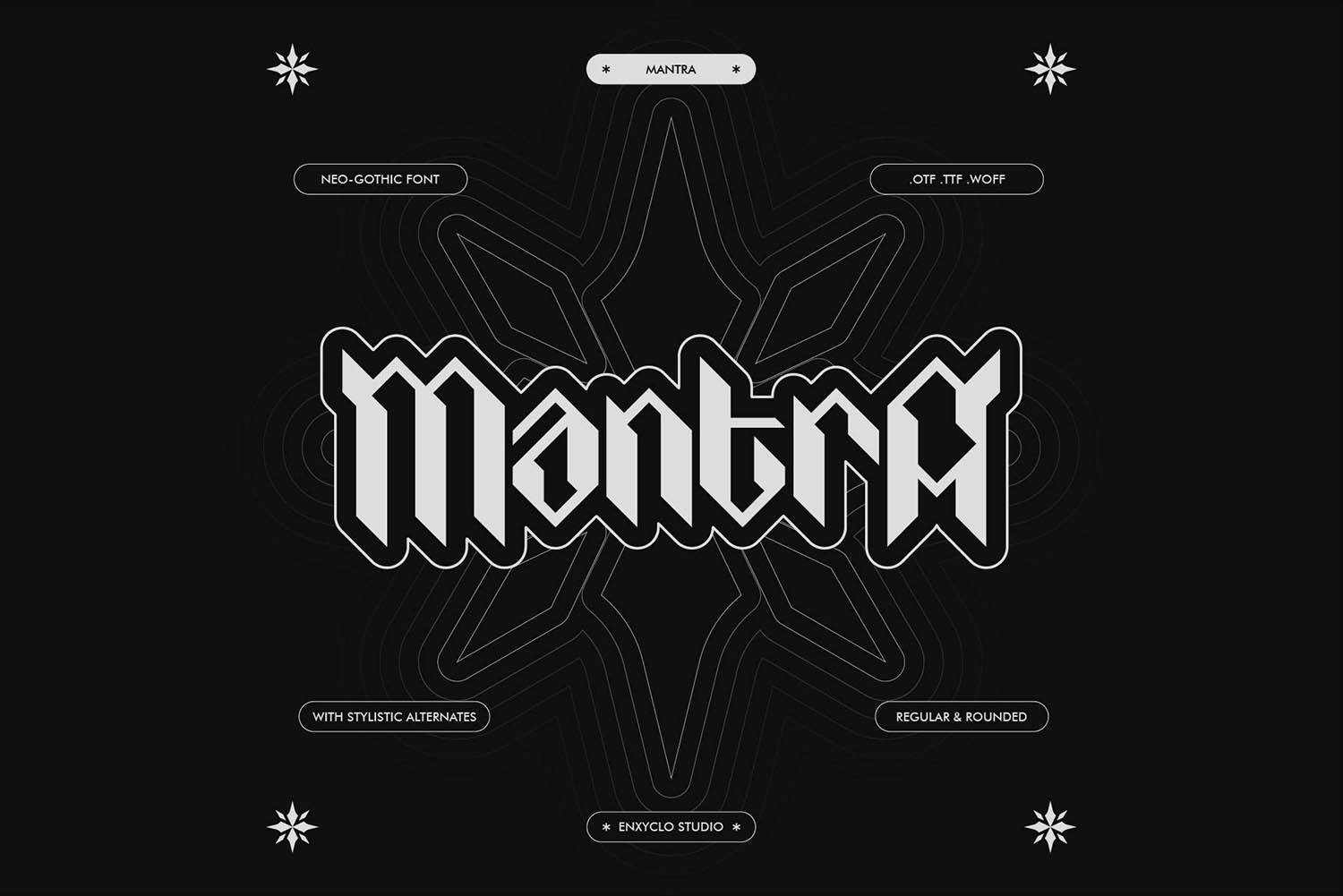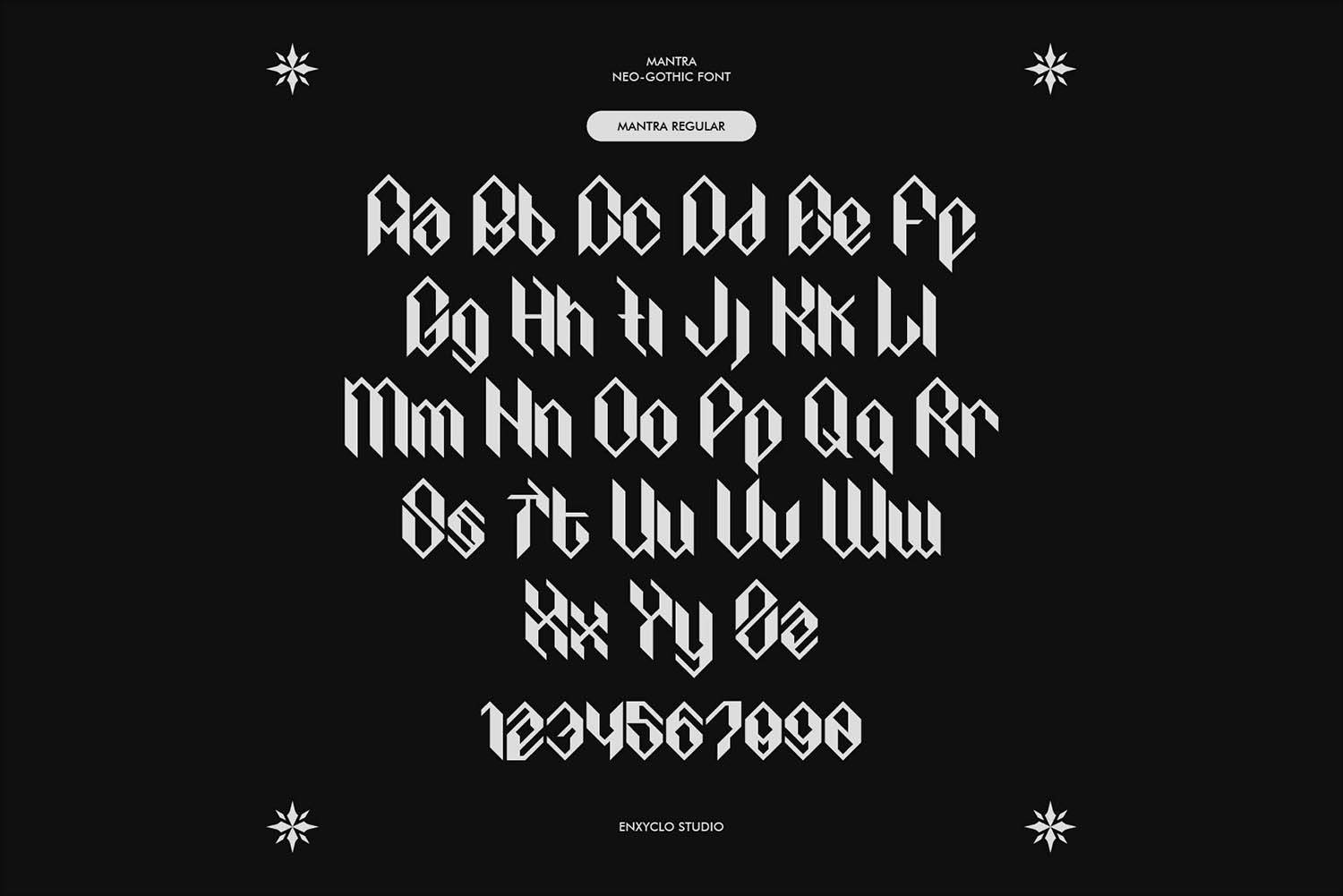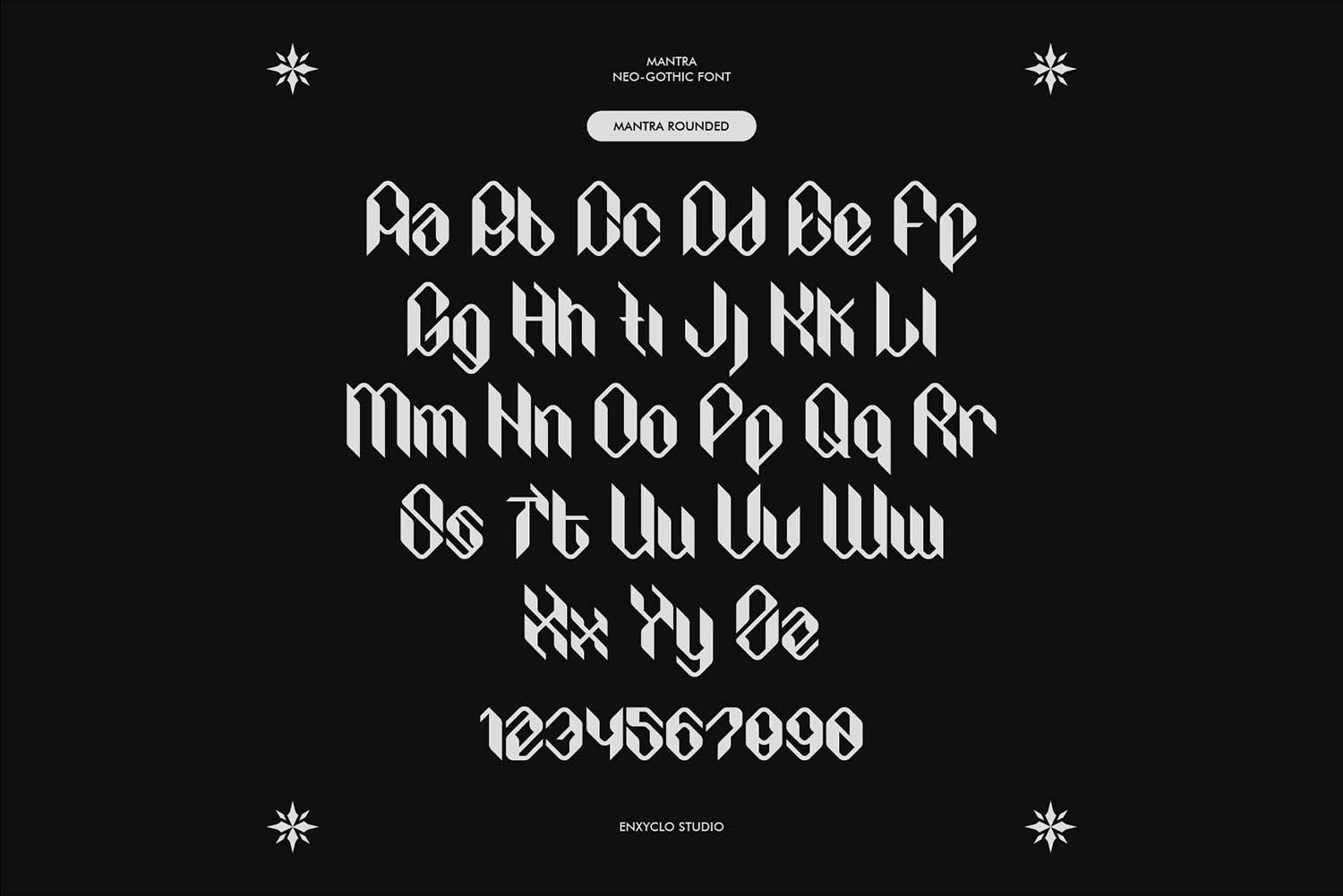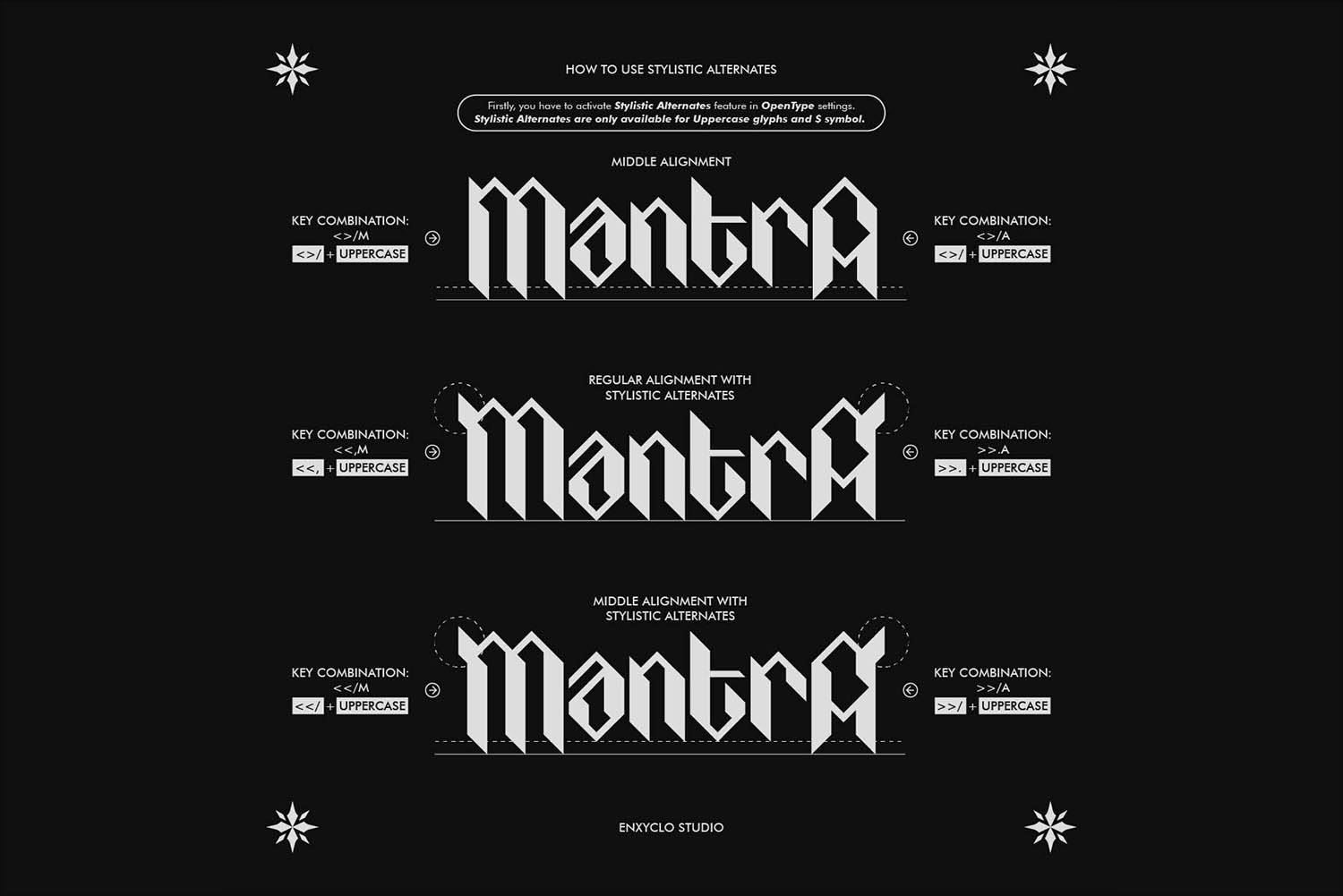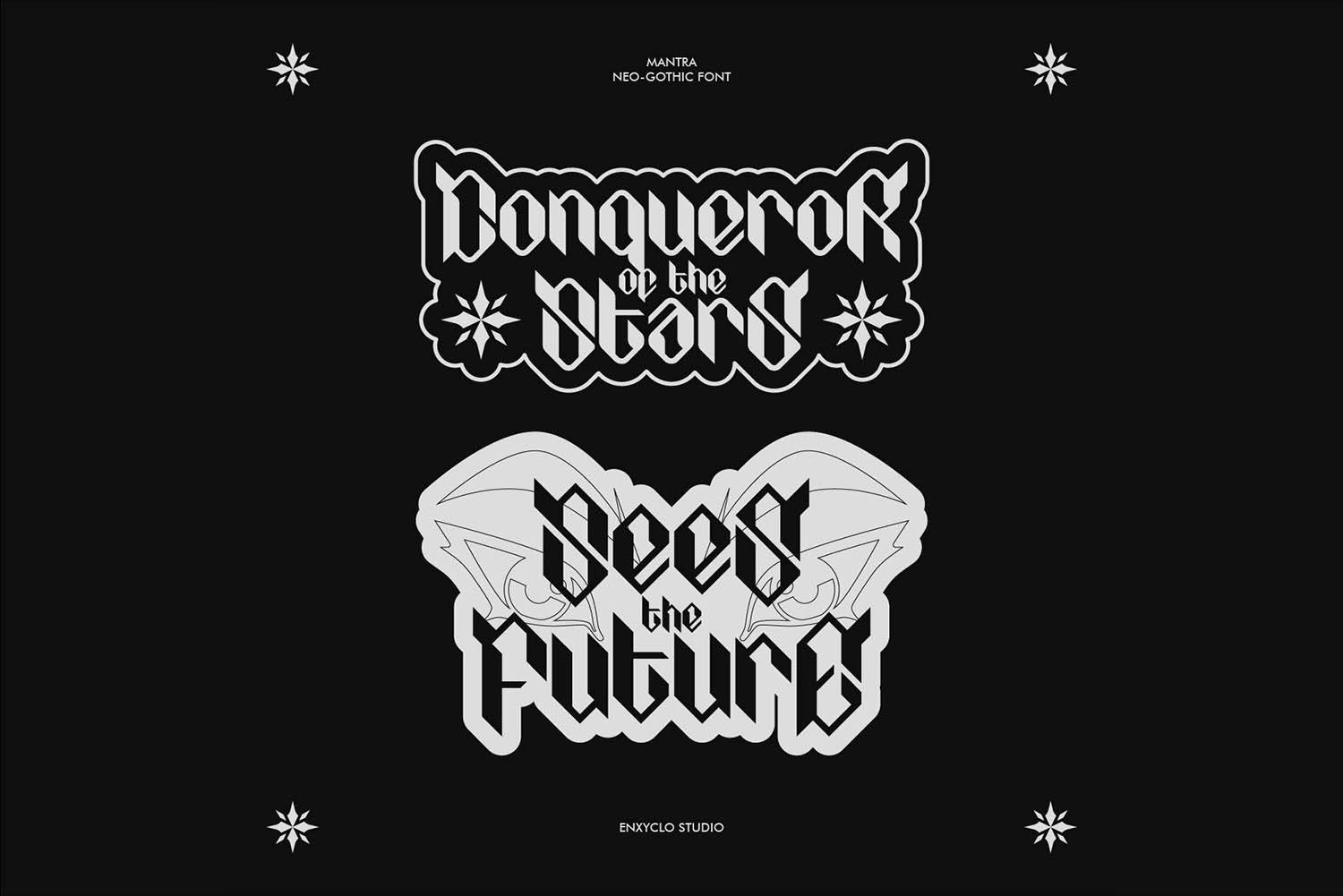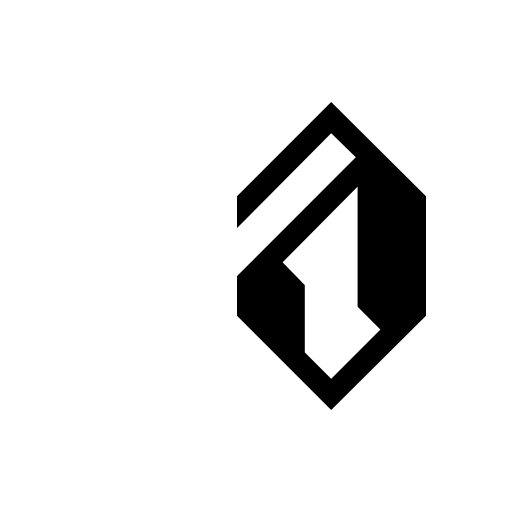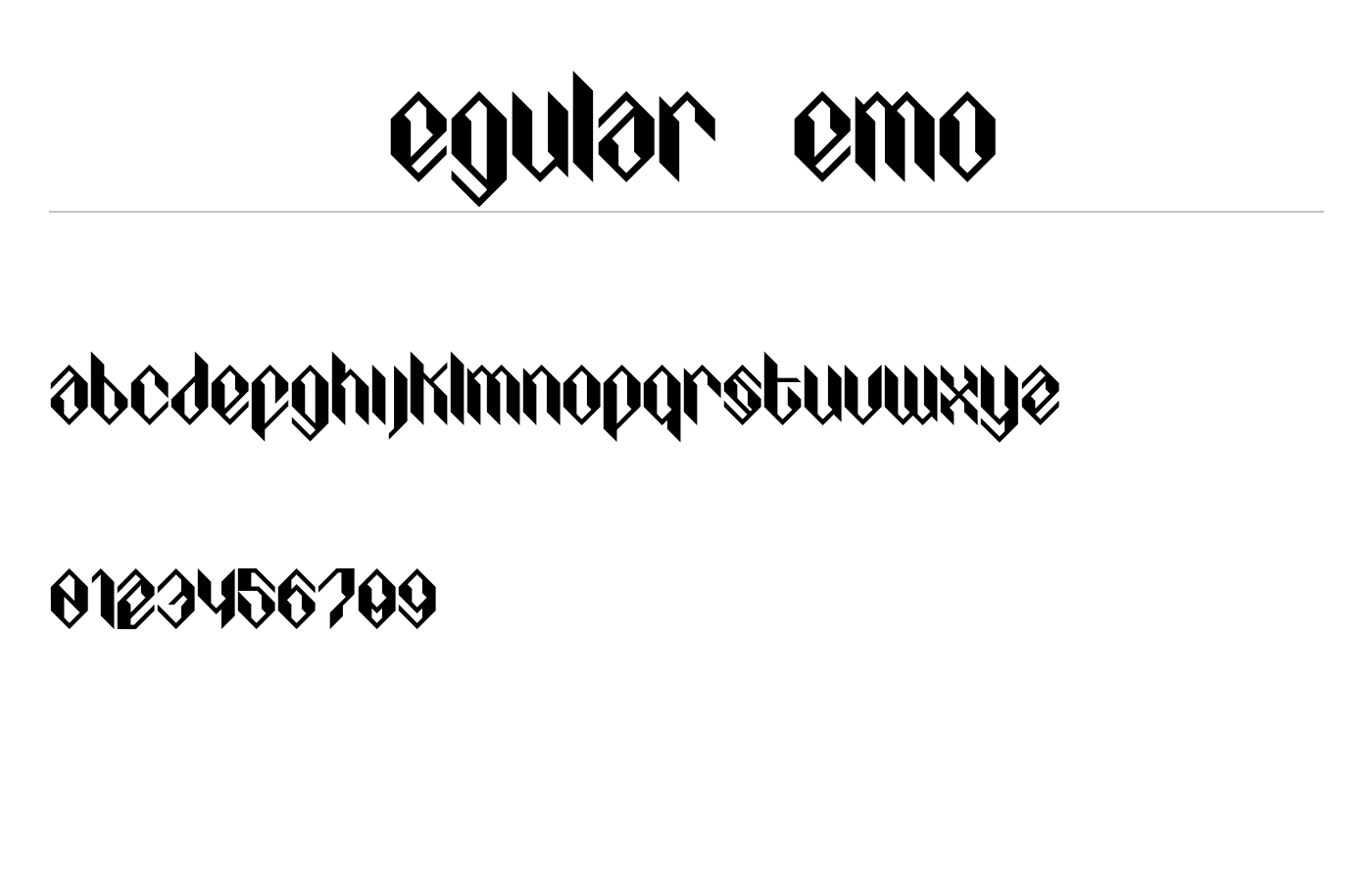
Mantra Font is a bold, blackletter-inspired typeface with a strong, geometric structure and sharp angles that convey a dramatic and gothic aesthetic. Its condensed letterforms and high contrast between thick and thin strokes make it ideal for creating striking headlines, logos, and designs that require a distinctive, edgy personality. This font works best in artistic, alternative, or vintage-themed projects where a powerful and unconventional style is desired.
Mantra Font
About Mantra Font